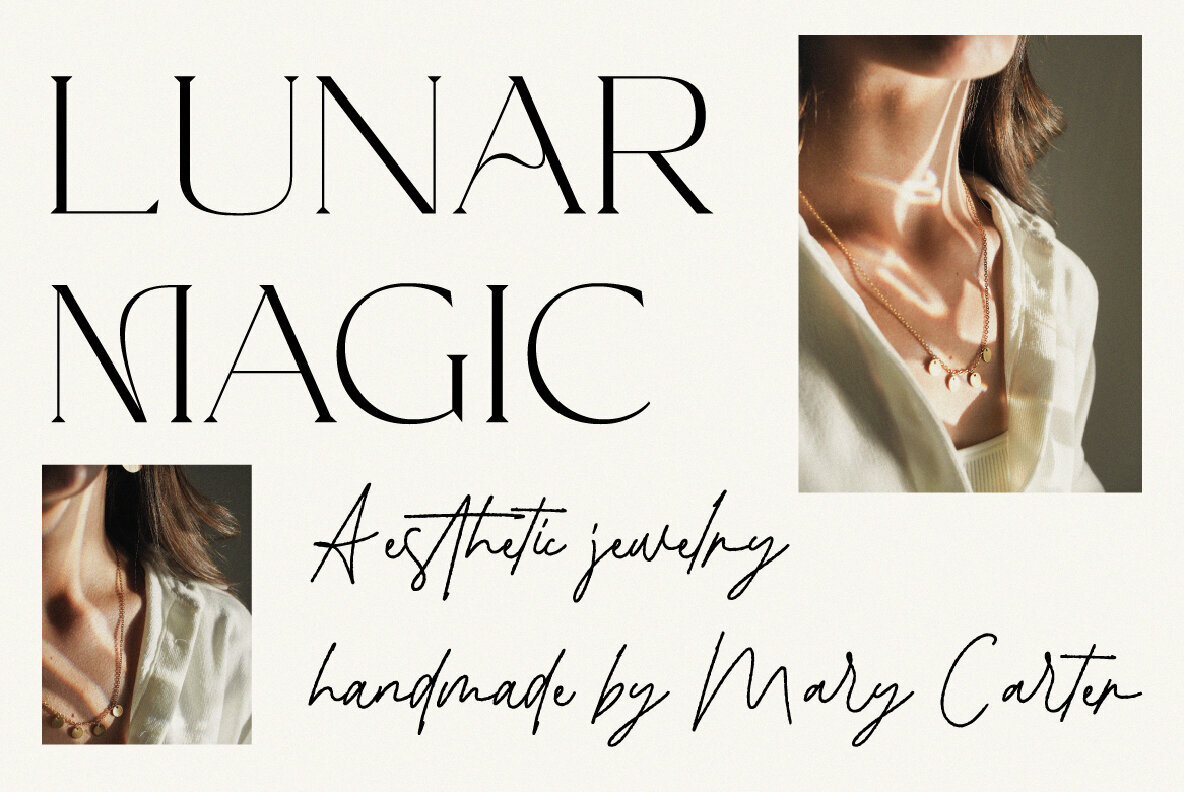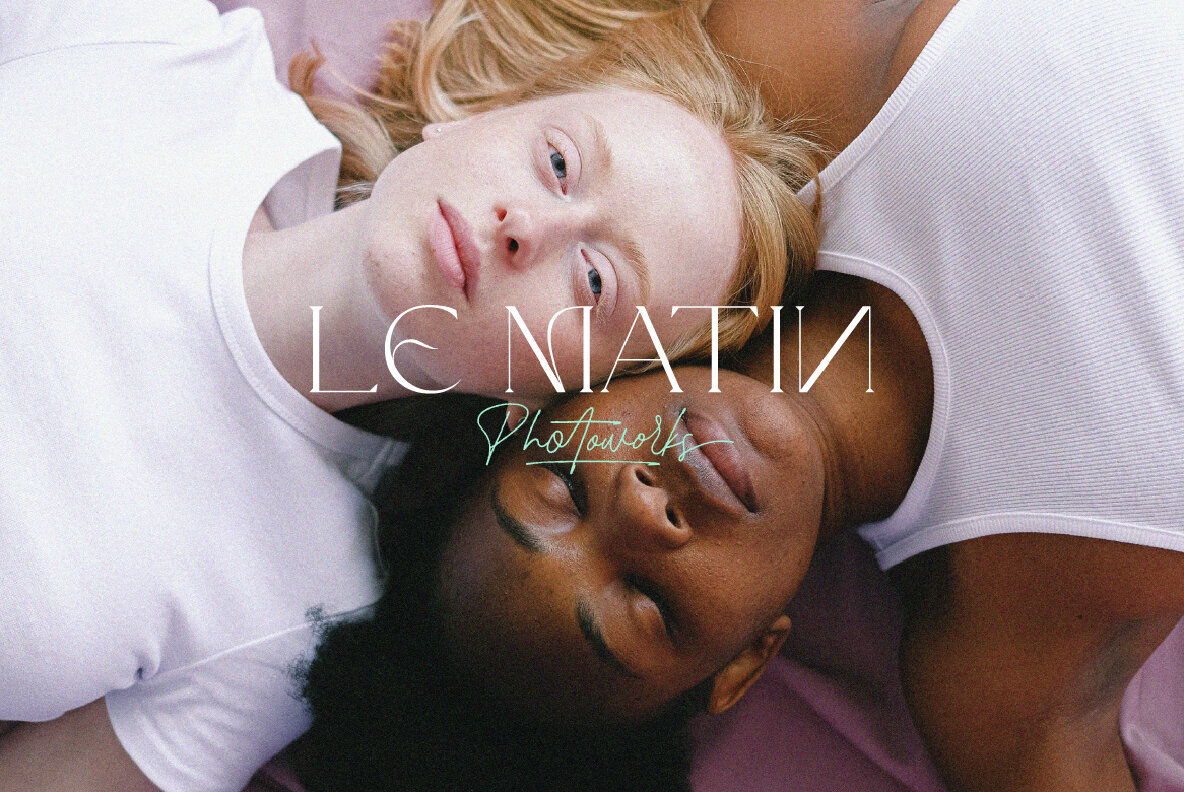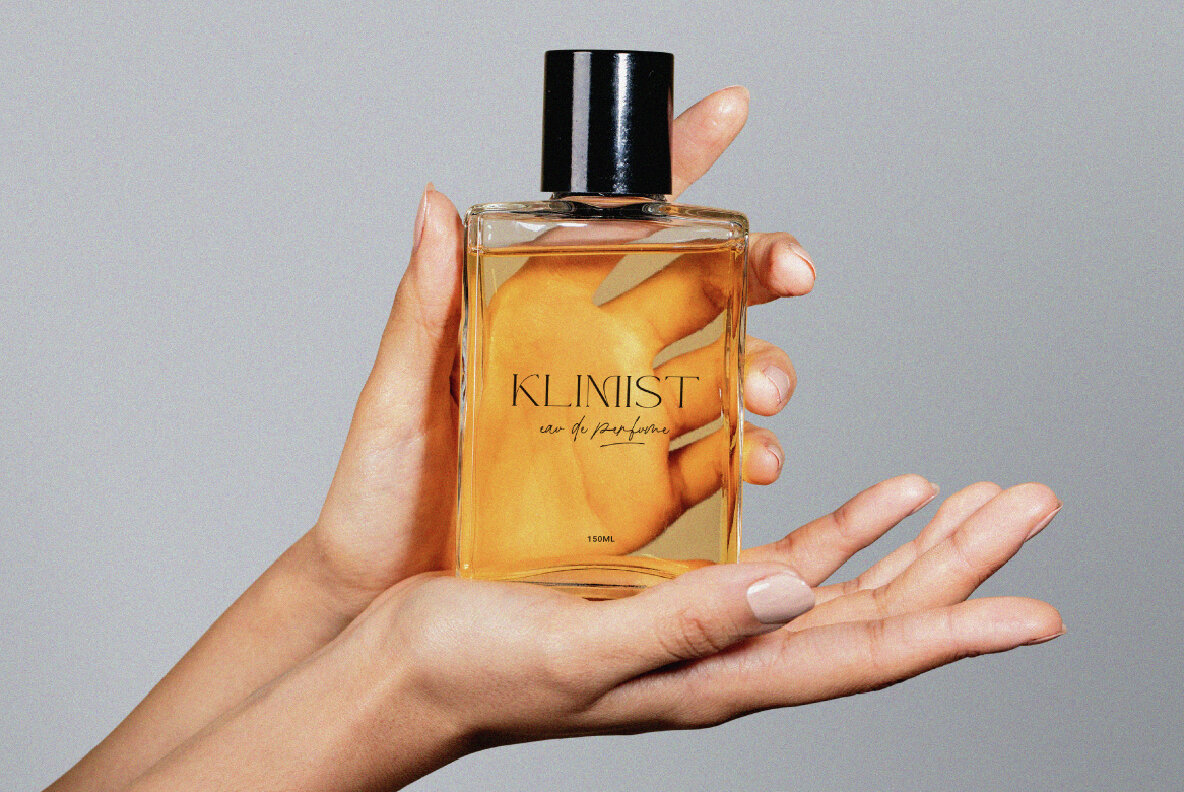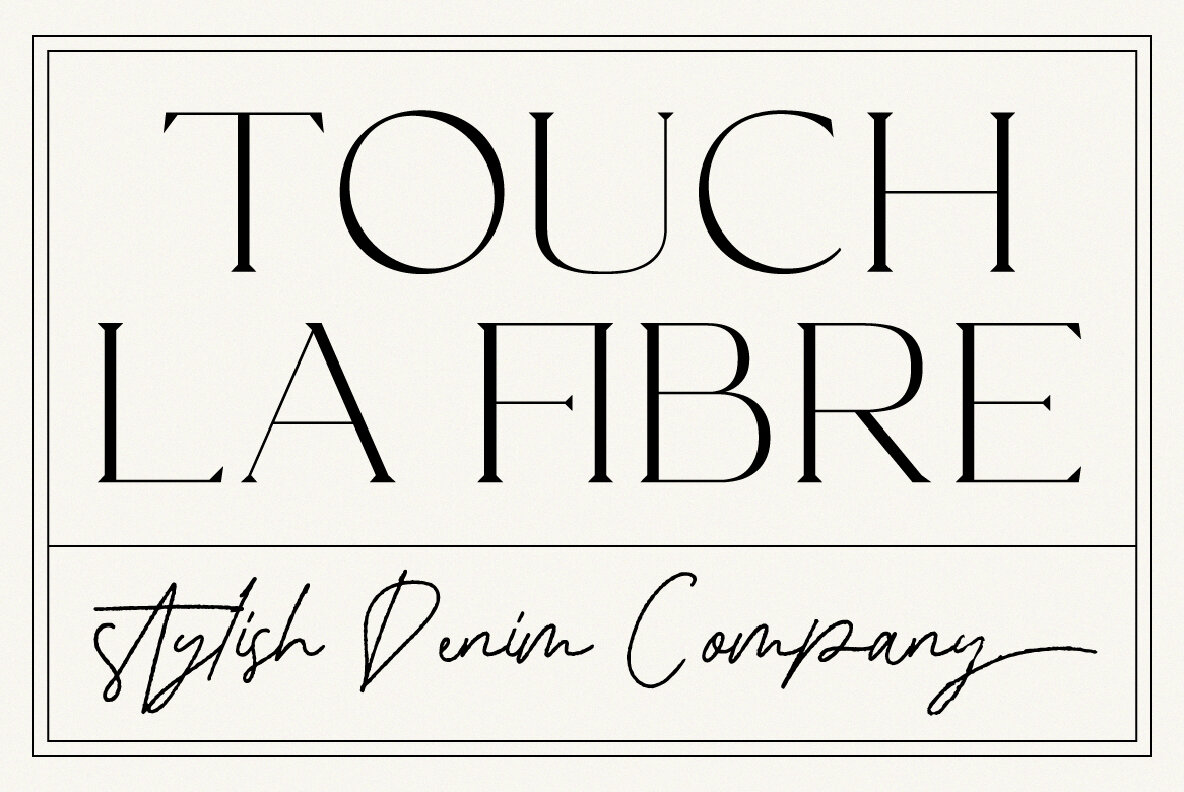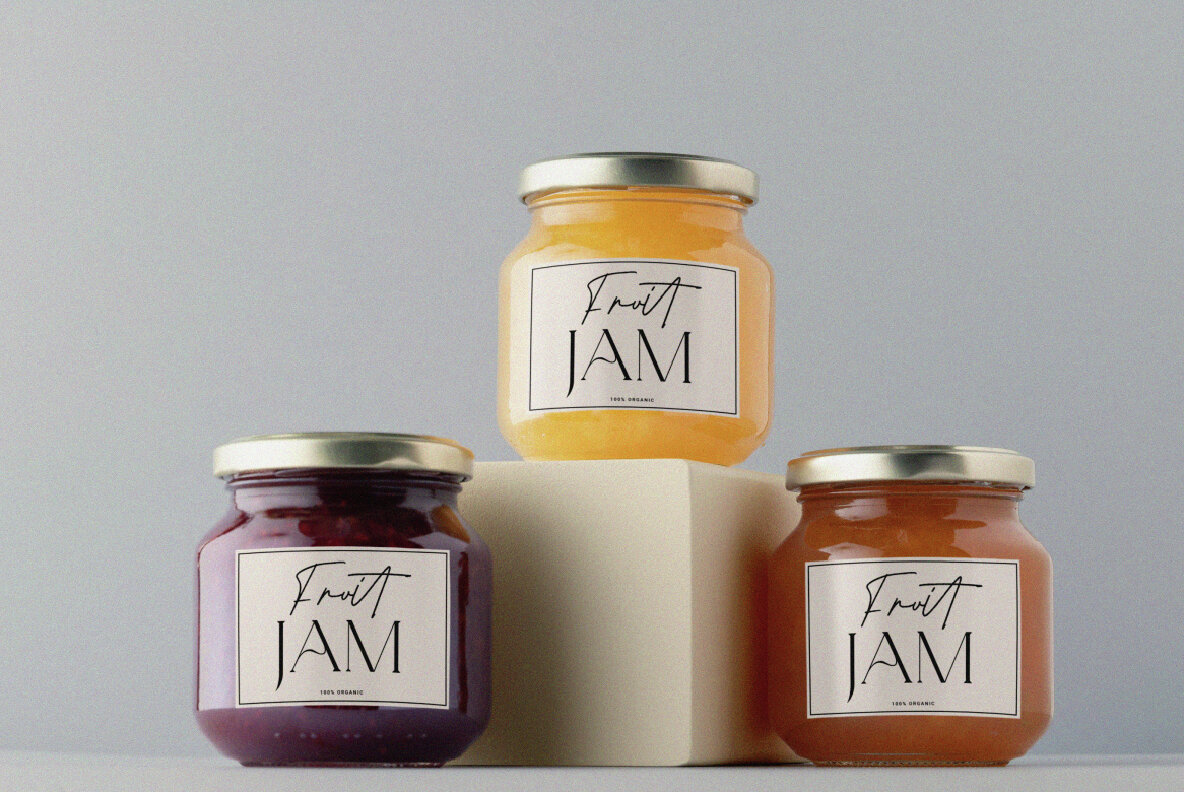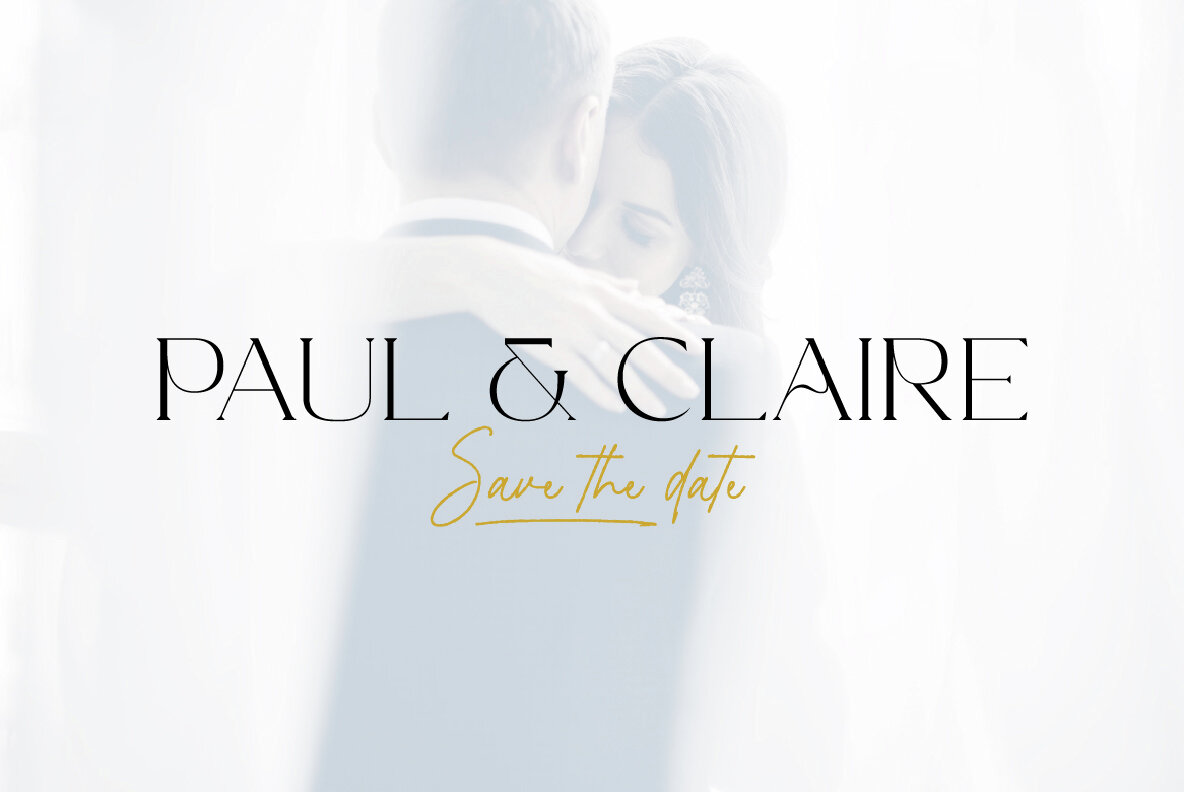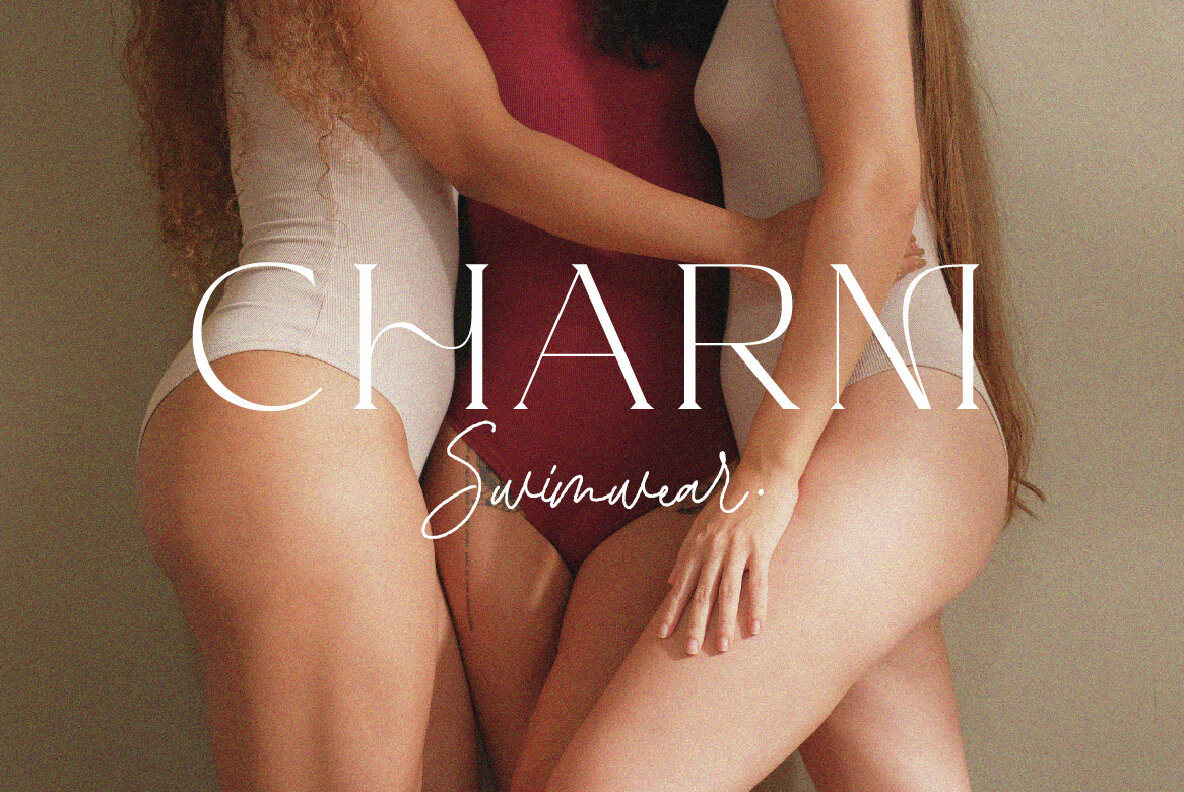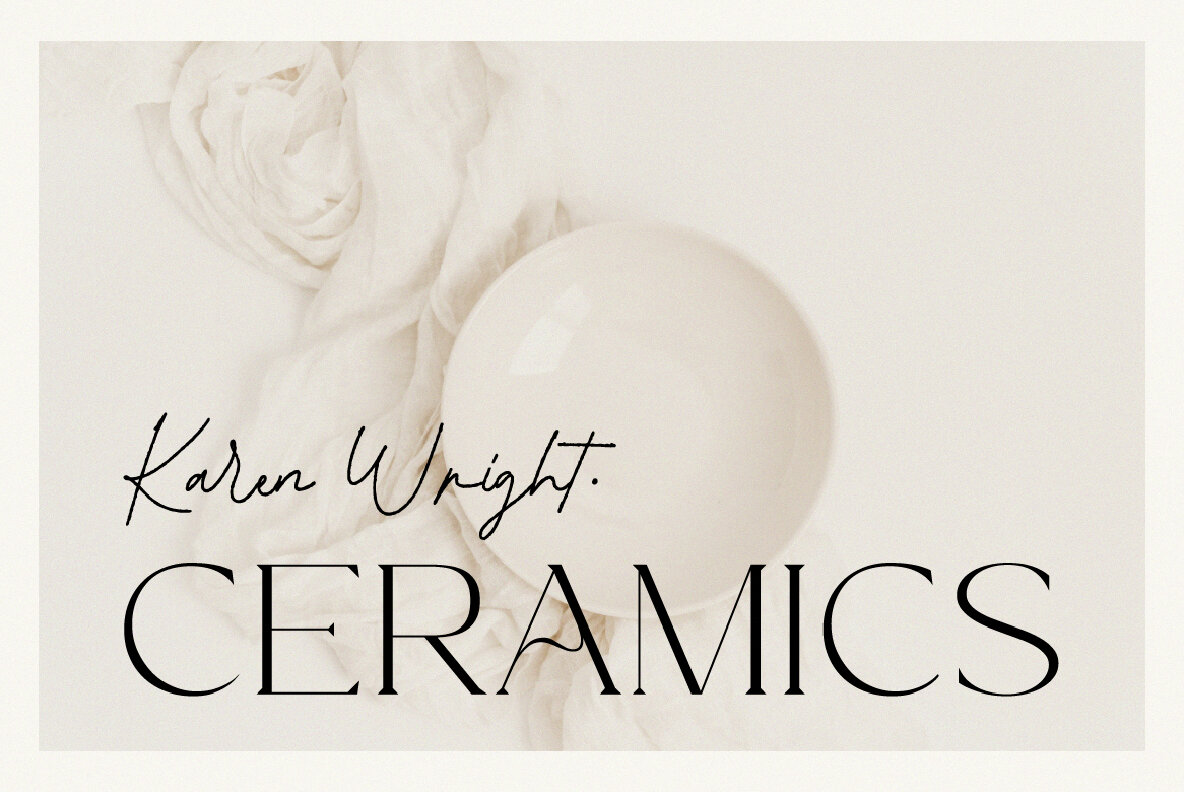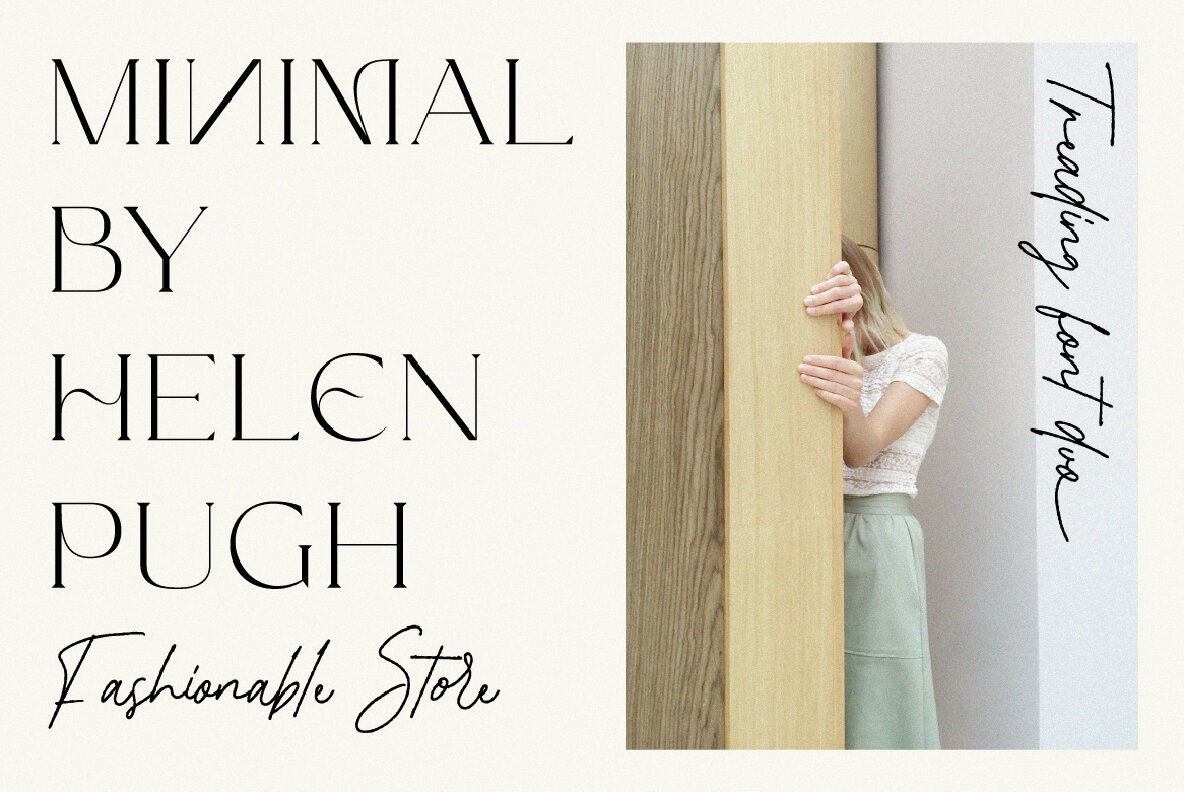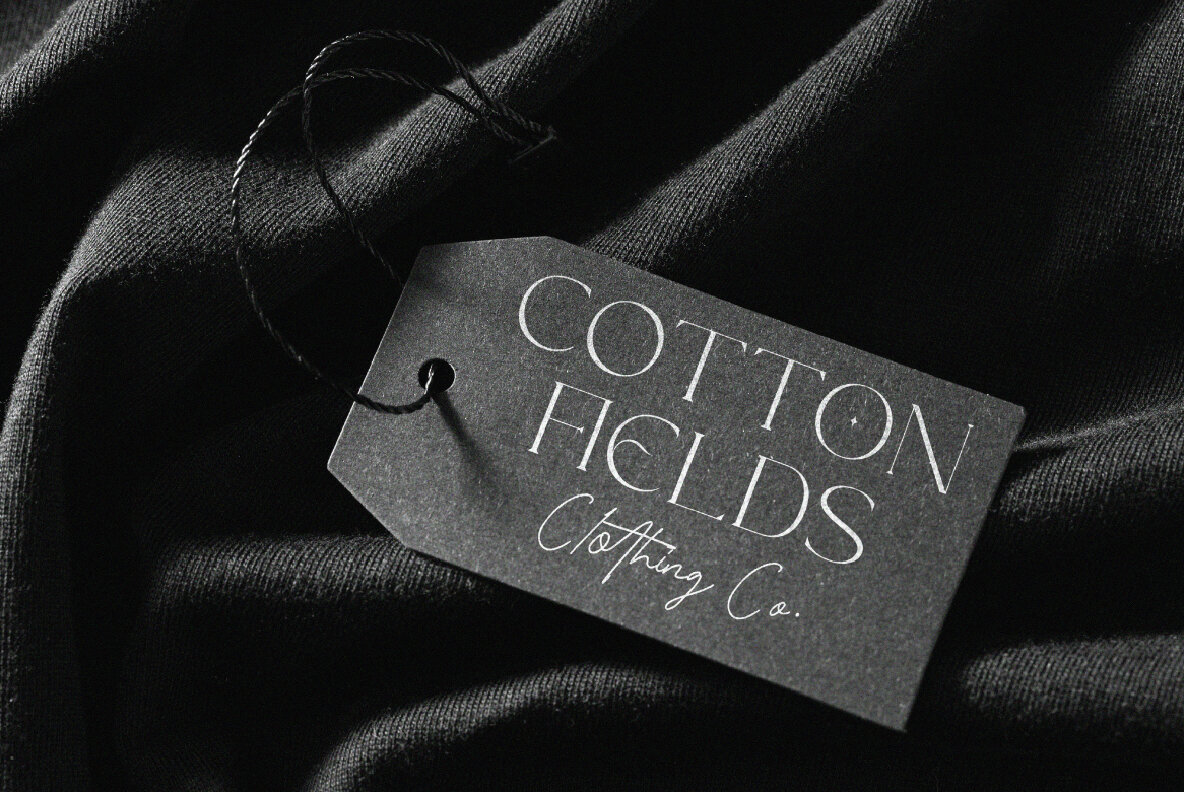
Treading Font
Treading combines a minimal and clean aesthetic with a handwritten script font to enhance the uniqueness of your designs. This script font offers ligatures, alternatives, and swash or underscore characters, adding a realistic touch. Ideal for logo design, branding, quotes, and more.Treading by Prioritype Co: Minimal Font with Handwritten Charm